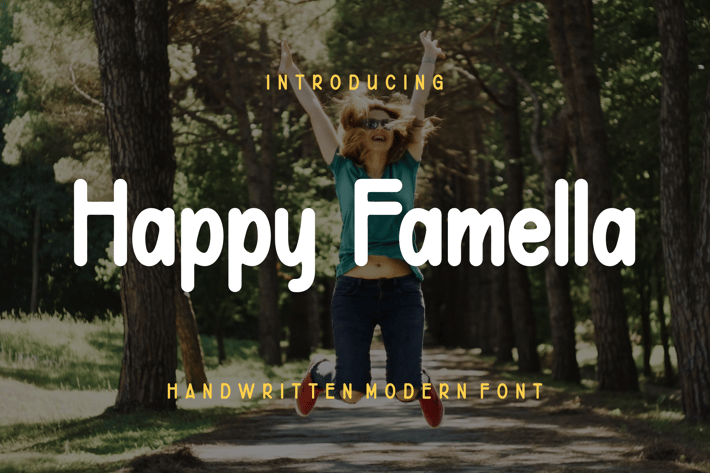
Happy Famella Font
Introducing our new product Happy Famella Font - Modern Font
Happy Famella Font - Modern Font is a bold and authentic display font. The font is suitable for any branding project like logo, esport, and many more. outstanding in a wide range of contexts.